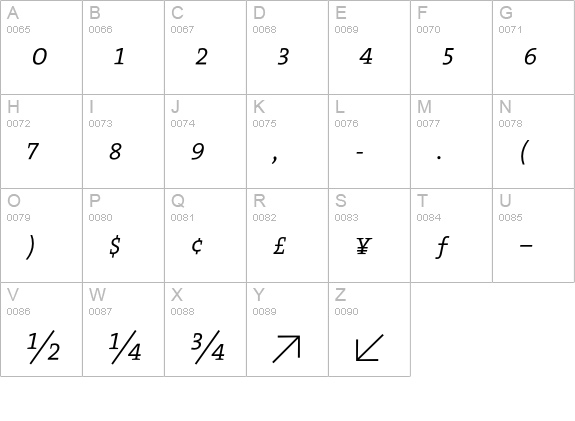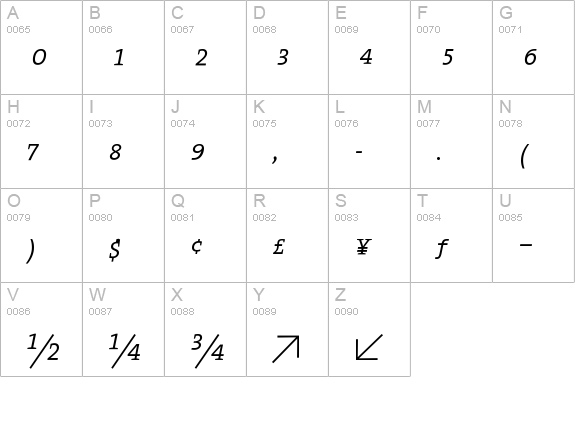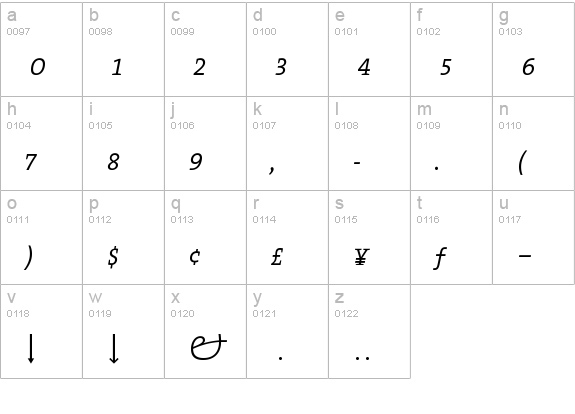
TheSerif ExtraLight Expert Italic Font Details
TheSerif ExtraLight Expert Italic is an airy, ultra-refined, italic variant in the TheSerif typeface family \xE2\x80\x94 well suited to minimalist headlines and refined display use.
TheSerif ExtraLight Expert Italic font is a delicate and refined typeface that exudes elegance and sophistication. Its slender and graceful strokes create a sense of fluidity, making it perfect for conveying a sense of class and style in any design. Featuring an expertly designed italic style, this font adds a touch of flair and creativity to your projects. Whether you're designing a wedding invitation, crafting a logo, or creating a stunning piece of typography, TheSerif ExtraLight Expert Italic font will elevate your work to new heights. What sets this font apart is not only its exquisite design but also its accessibility. TheSerif ExtraLight Expert Italic font is available for free download at FontsMarket.com. This means that you can easily obtain this extraordinary font and incorporate it into your designs without any cost. With its clean and legible characters, TheSerif ExtraLight Expert Italic font is versatile and suitable for a wide range of applications. Its timeless appeal makes it ideal for both print and digital media, ensuring that your message is communicated effectively and beautifully. Whether you're a professional designer or a creative enthusiast, TheSerif ExtraLight Expert Italic font is a must-have in your font collection. Its free availability at FontsMarket.com allows you to explore and experiment with this captivating typeface, unlocking endless possibilities for your design projects. Embrace the elegance and sophistication of TheSerif ExtraLight Expert Italic font and elevate your designs to a new level of excellence. Download it for free at FontsMarket.com and let your creativity soar.